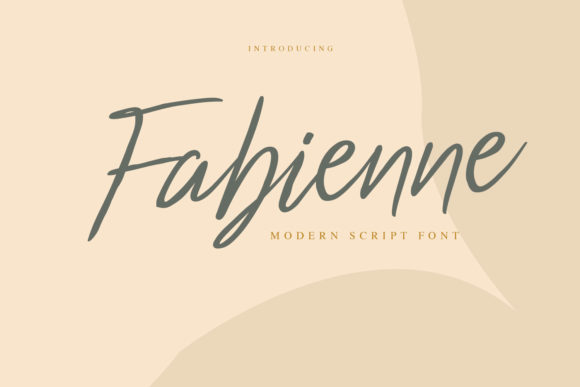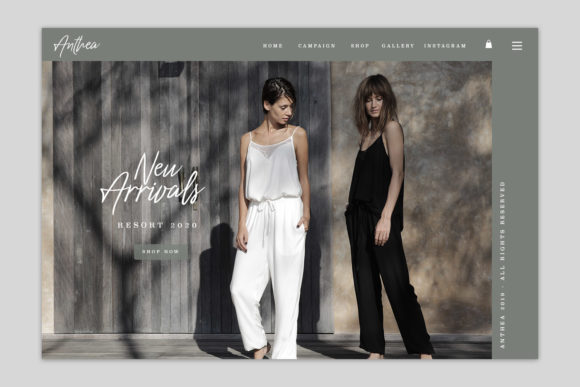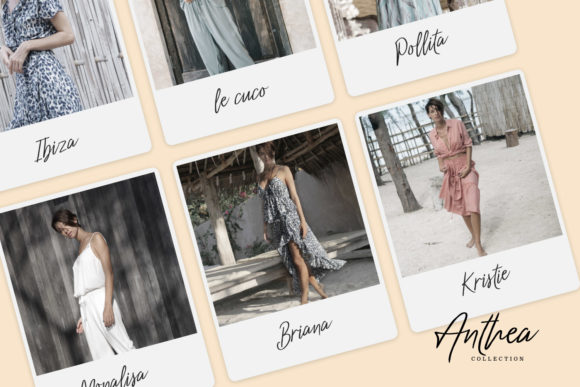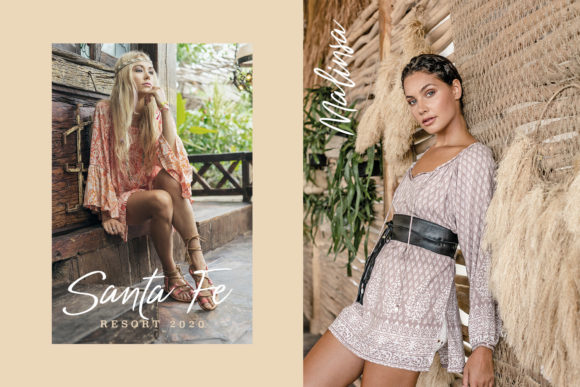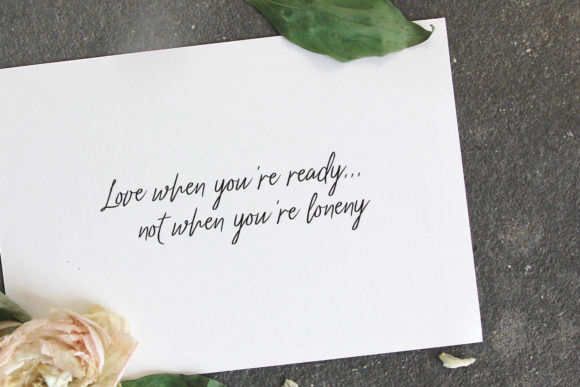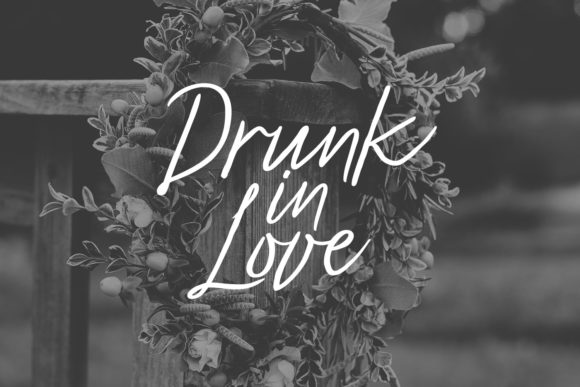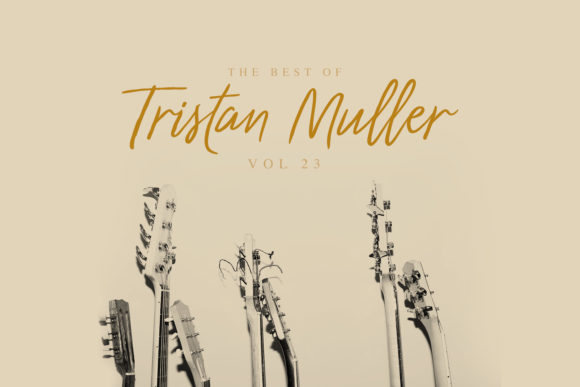
HomeScript FontsFabienne Font Script Fonts Fabienne Font FacebookXPinterestWhatsApp Fabienne Font Poster 2 Fabienne Font Poster 3 Fabienne Font Poster 4 Fabienne Font Poster 5 Fabienne Font Poster 6 Fabienne Font Poster 7 About Fabienne Font Fabienne is a strong and natural script with organic letters. Get inspired by its bold charm! DOWNLOAD ON CREATIVE FABRICAThis font is sold and delivered by Creative Fabrica. Font Canyon may earn a commission if you buy through this link. People also explored Don Juan Font Brush Stroke Saenkabon Font Carolle Font Wicken Park Font Bandoya Font Amoriny Font Monday Salute Font Hutullan Font 317 0 TagsFabienne Font Previous articleWarsini FontNext articleFresHot Font LEAVE A REPLY Cancel reply Comment: Please enter your comment! Name:* Please enter your name here Email:* You have entered an incorrect email address! Please enter your email address here Website: Save my name, email, and website in this browser for the next time I comment. Personal Use Free BD Alm Personal Use Free Read more about this font Browie Personal Use Free Read more about this font Amelline Personal Use Free Read more about this font My Ugly Handwritting Personal Use Free Read more about this font BLOG 5 Fonts That Will Dominate Design Trends in 2026 5 Fonts for 2026 That Will Dominate Design Trends Typography plays a critical role in visual communication, and as we look ahead to 2026, it’s... Fonts That Capture the Spirit of New York City Where to Buy American Fonts Online in 2024 How to Install and Use Fonts on Windows, macOS, and Web Projects